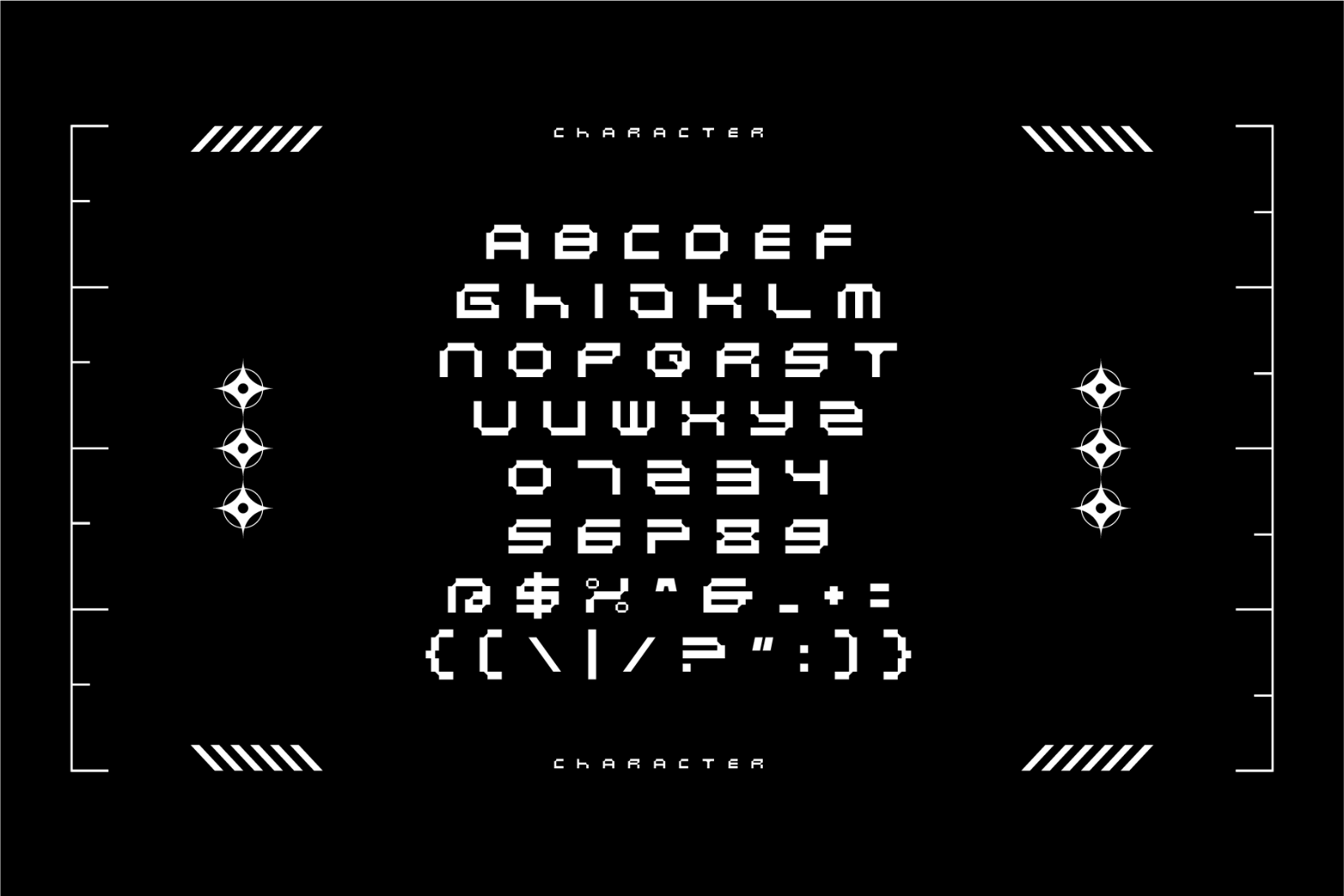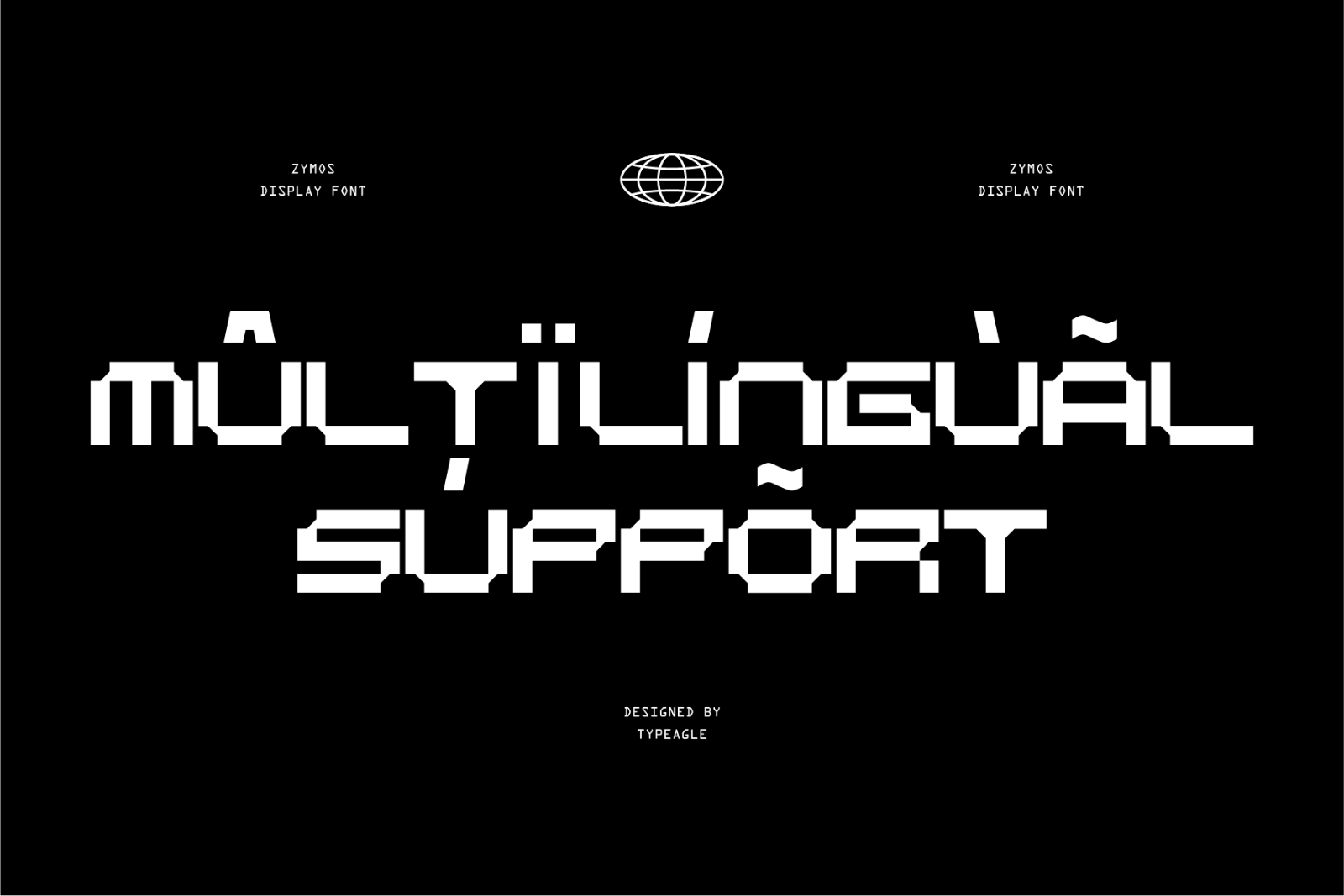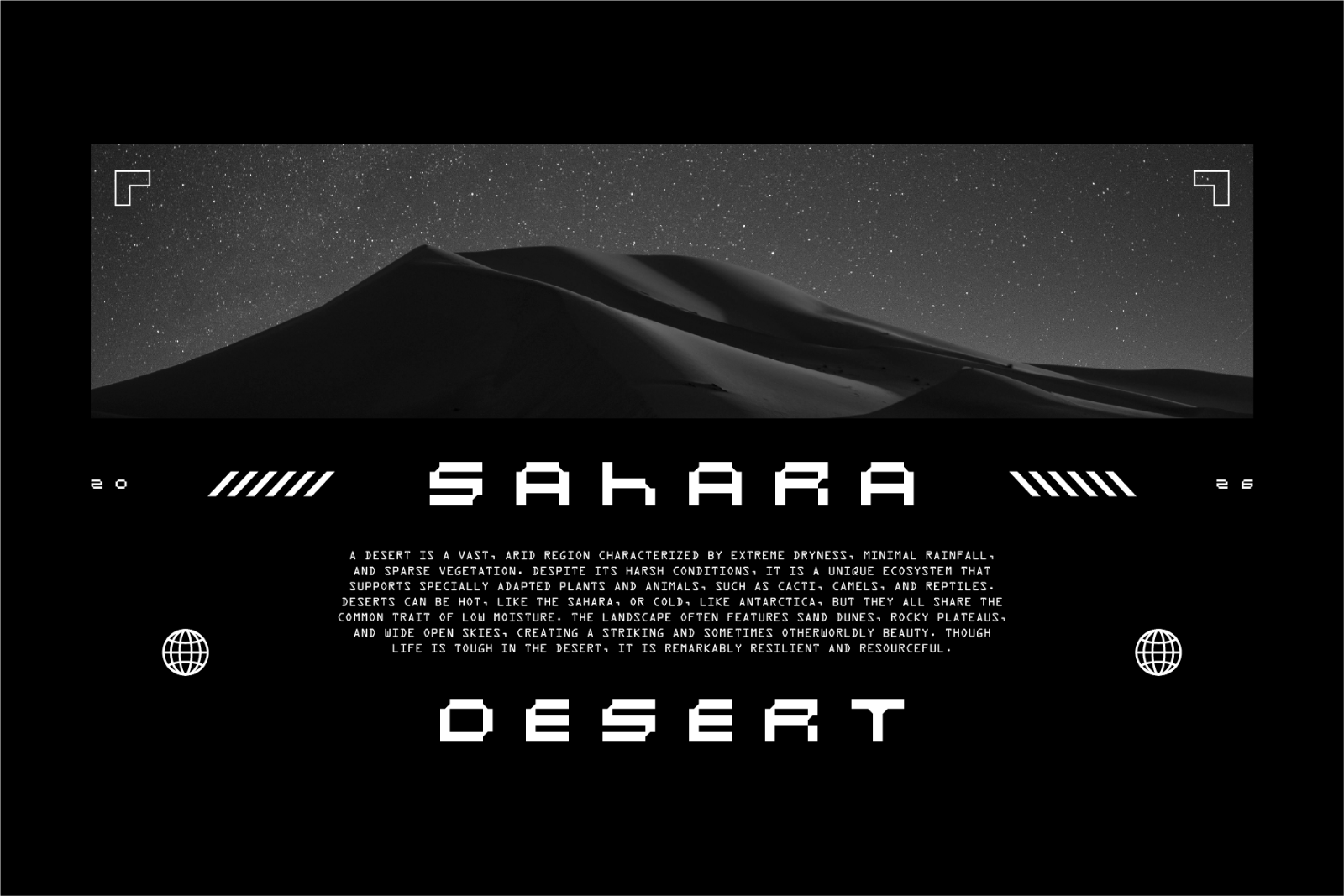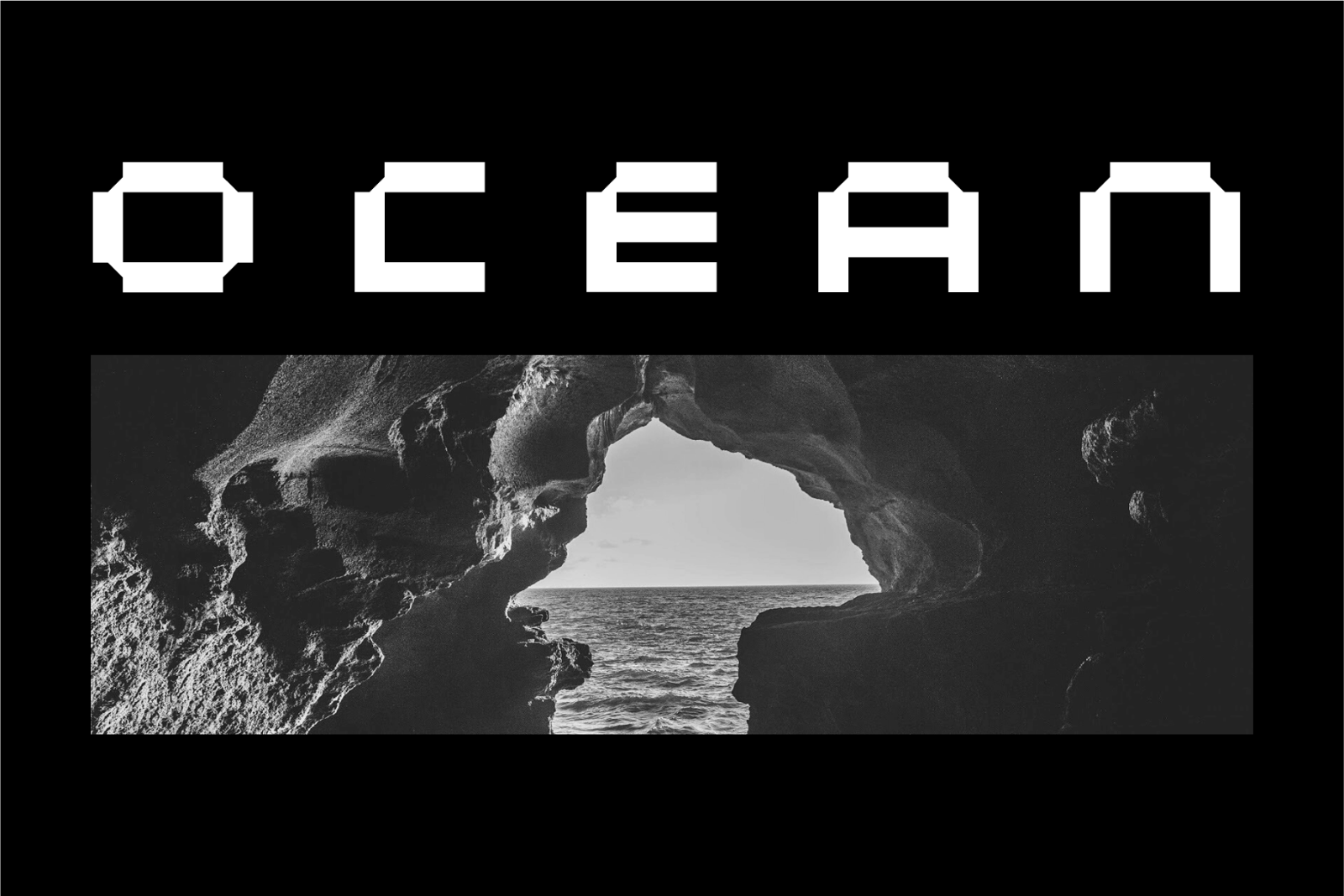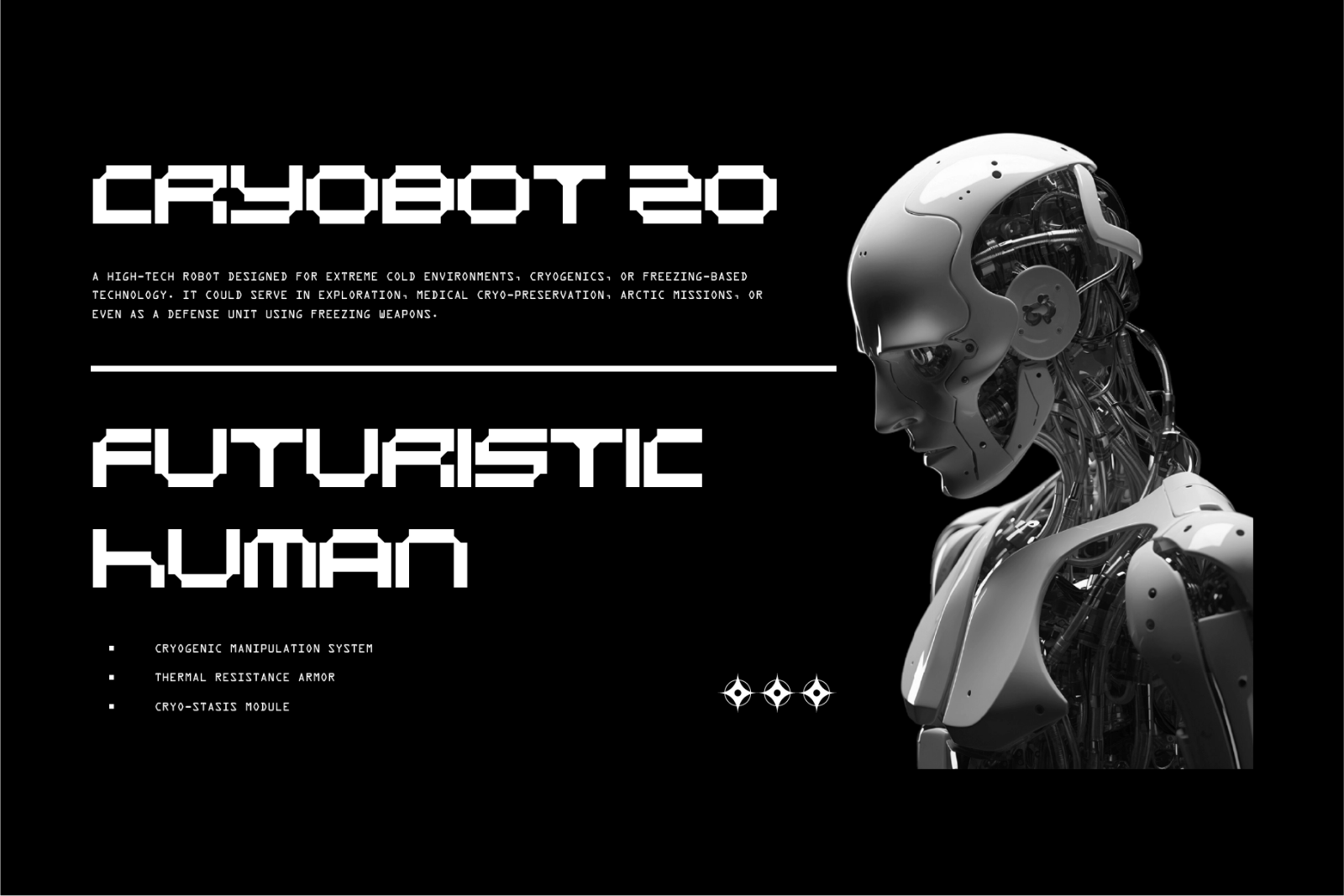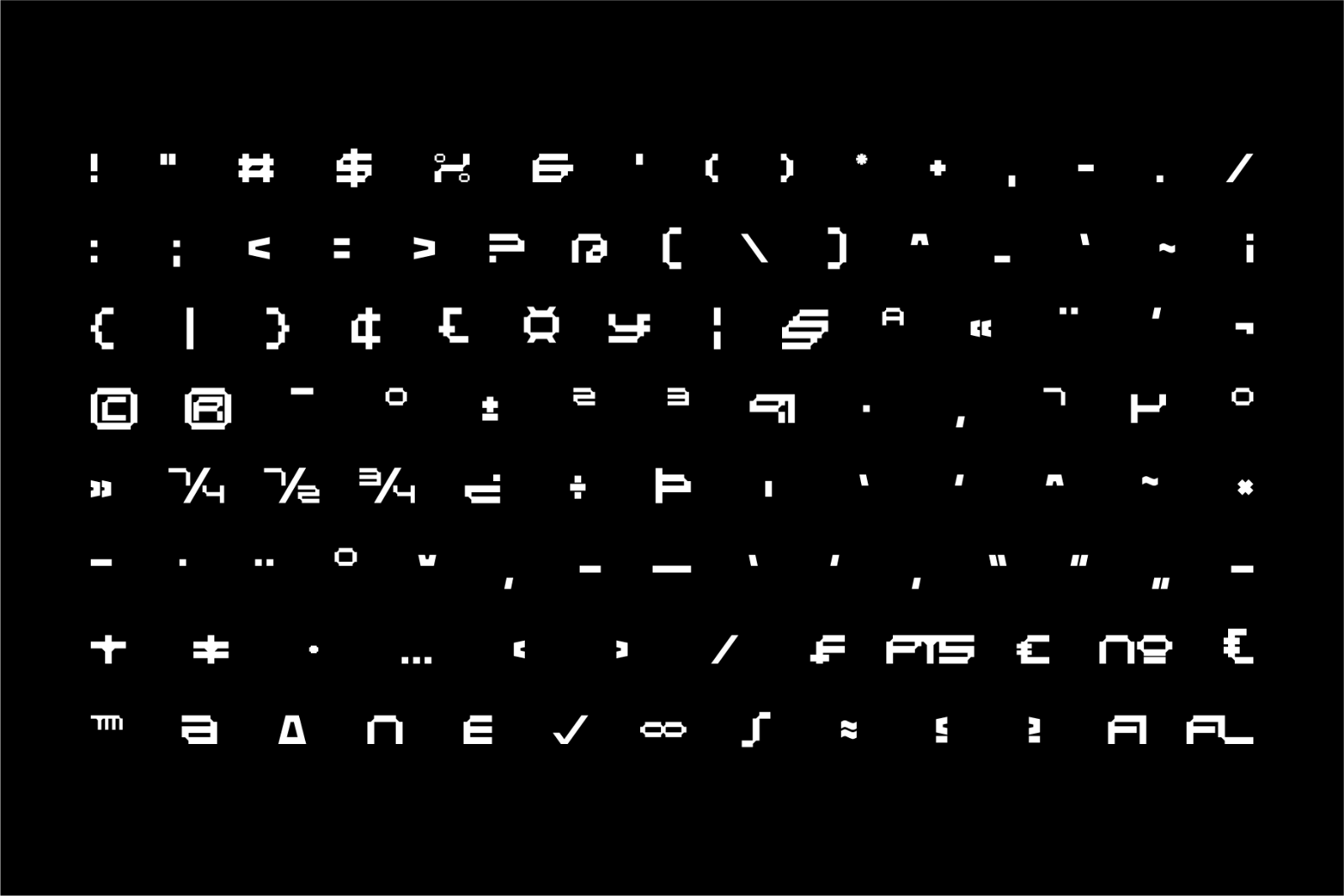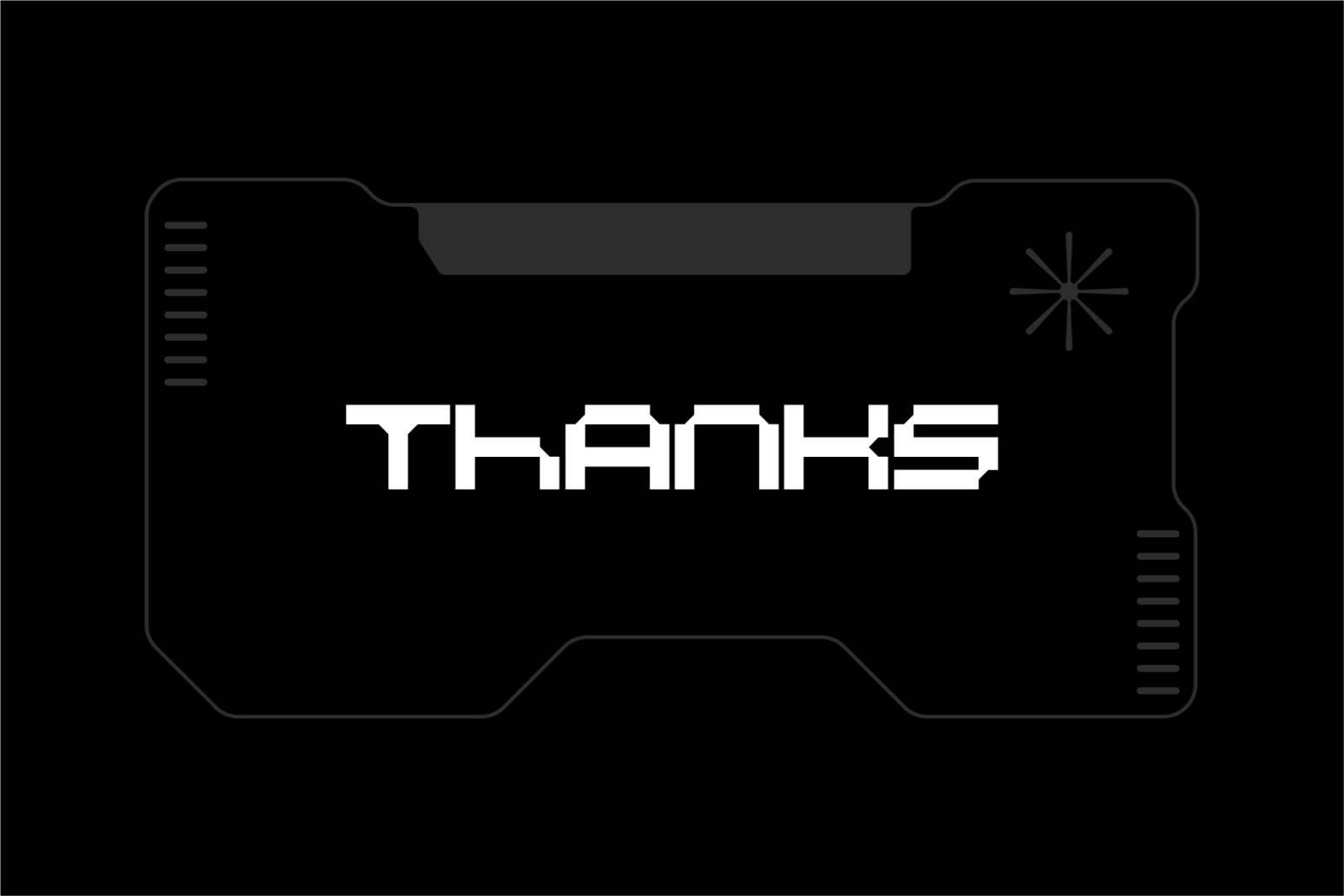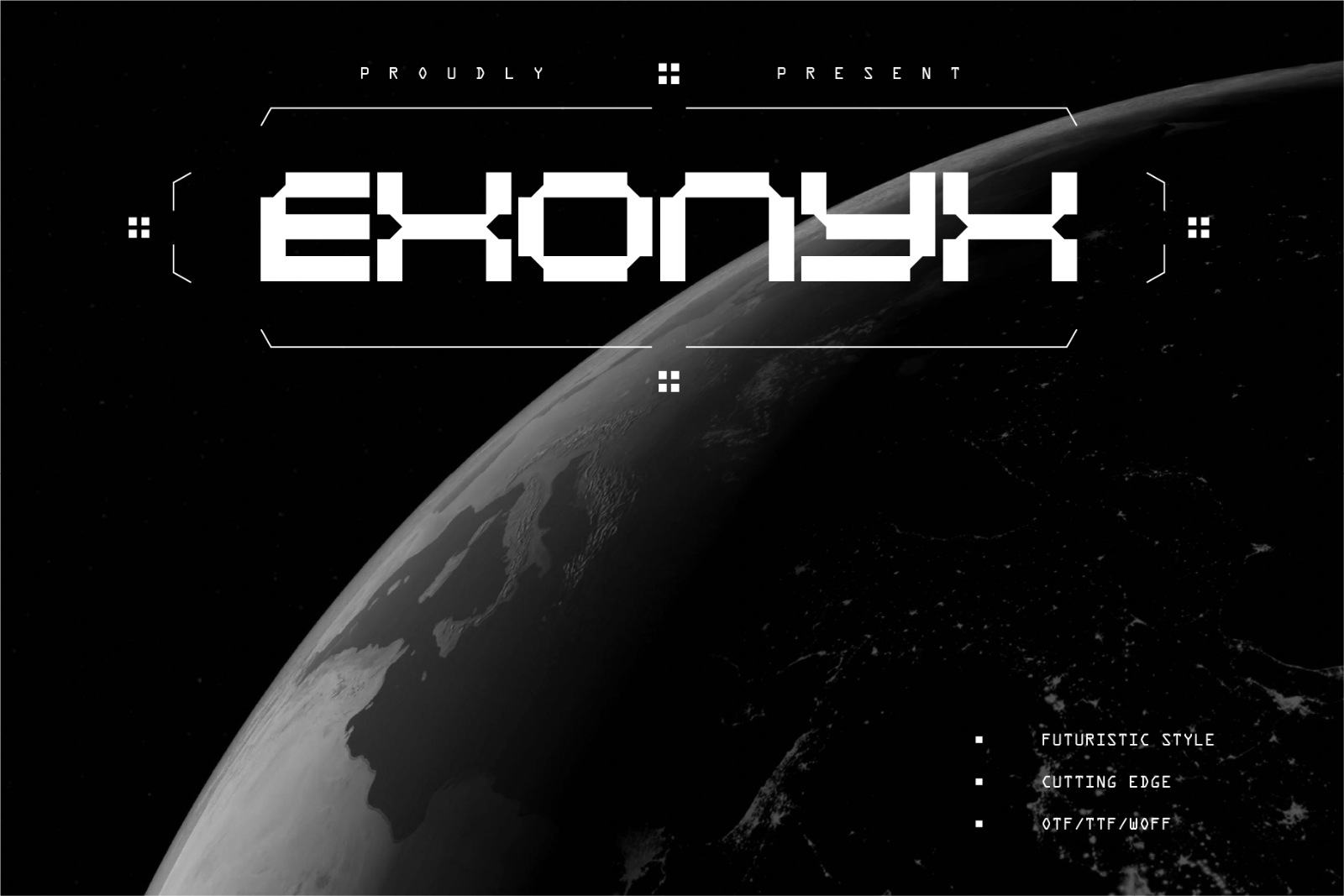
MarketplaceFontsExonyx - Futuristic Display Font
Exonyx is a sleek, cutting-edge font designed for the future. With sharp lines and smooth contours, it embodies a sense of speed, innovation, and sophistication. Its geometric forms and minimalistic style make it perfect for modern, tech-forward applications such as branding, websites, and product designs that aim to stand out in the digital age. Exonyx combines boldness with clarity, offering a visually striking and highly readable typeface ideal for projects that require a futuristic touch.